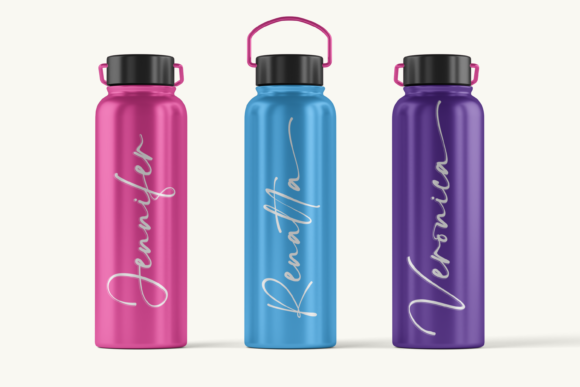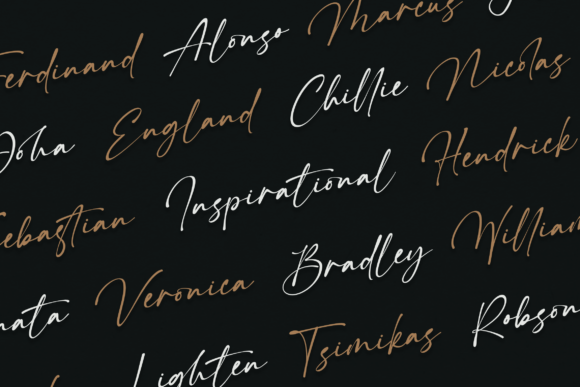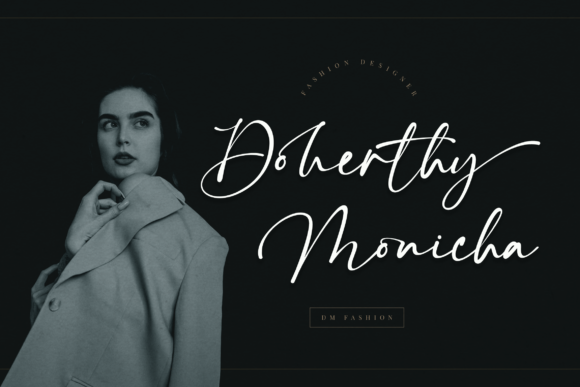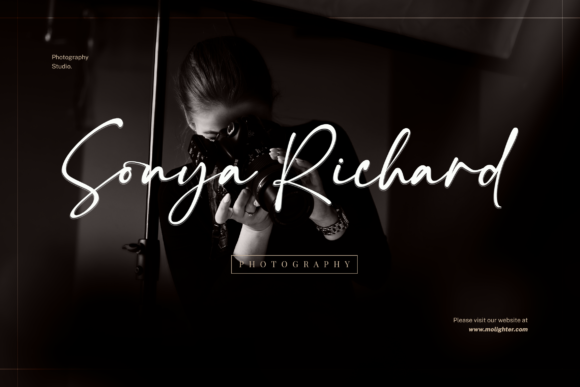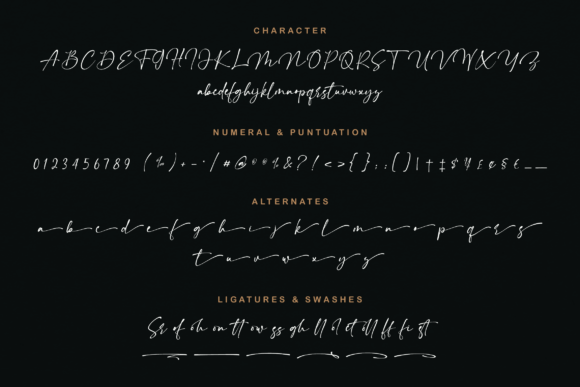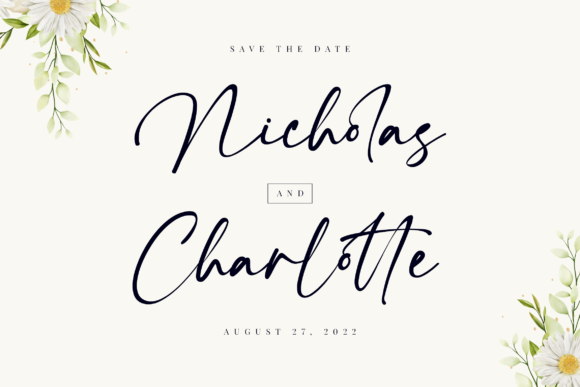
Introducing Constaller Font: Elevate Your Designs with Luxury and Elegance
Are you tired of using the same old fonts in your design projects? Look no further! Constaller Font is here to revolutionize the way you approach typography. This beautiful and light handwritten font is designed to add a touch of luxury and sophistication to any design project. With its unique feel and stunning impact, Constaller is sure to take your creations to the next level.
The Unique Features of Constaller Font
Constaller Font boasts a range of features that set it apart from other fonts on the market. Here are just a few of the things that make Constaller so special:
- Handwritten with love: Constaller is a carefully crafted handwritten font, designed to bring a personal touch to your designs.
- Unique feel: With its distinctive style, Constaller adds a fresh and original touch to any project.
- Stunning impact: Whether you’re working on a logo, branding materials, or social media graphics, Constaller is sure to make a lasting impression.
- Luxury spark: Add a touch of high-end sophistication to your designs with Constaller.
The Benefits of Using Constaller Font
So why choose Constaller Font for your design projects? Here are just a few of the benefits you can expect:
- Elevate your brand: With Constaller, you can create designs that are truly unique and reflective of your brand’s personality.
- Stand out from the crowd: In a sea of generic fonts, Constaller helps you stand out and grab attention.
- Versatile: Constaller is perfect for a wide range of design projects, from logos and branding materials to social media graphics and more.
How to Use Constaller Font in Your Designs
Using Constaller Font in your designs is easy! Here are a few tips to get you started:
- Pair it with other fonts: Constaller pairs beautifully with other fonts, so don’t be afraid to experiment and find your favorite combinations.
- Experiment with glyphs and ligatures: With Constaller, you have access to a wide range of glyphs and ligatures. Take some time to explore and find the perfect design elements for your project.
- Use it for headlines and titles: Constaller is perfect for headlines and titles, where its unique style and luxury feel can really shine.